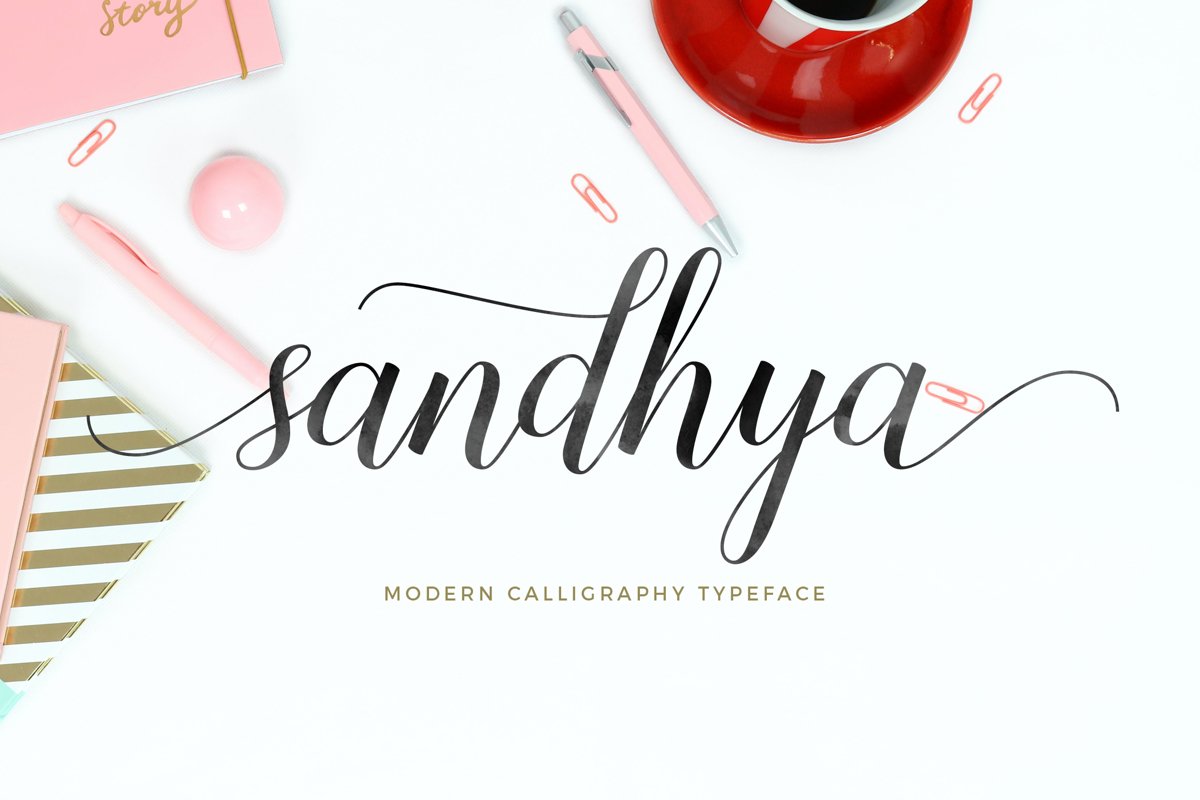
Sandhya Script 700815 Calligraphy Font Bundles Looking for sandhya font designed by unicode studio? click here to download the font or create a custom image with your own text online. This font is pua encoded which means you can access all of the glyphs and swashes with ease! it features a varying baseline, smooth lines, gorgeous glyphs and stunning alternates.
Sandhya Font By Unicode Studio Fontriver Sandhya script – a new fresh & modern script with a modern calligraphy style, decorative characters and a dancing baseline! so beautiful on invitation like greeting cards, branding materials, business cards, quotes, posters, and more! sandhya come with 400 glyphs. Release note this demo version font is only for personal use commercial licenses and complete set available at crmrkt 99ammd and if you need another product, please visit at: creativemarket unicode to donate click here unicodeid22@gmail i really appreciate your donations. mail support : unicodestudio@gmail thank you!. Download sandhya font for pc mac for free, take a test drive and see the entire character set. moreover, you can embed it to your website with @font face support. Download free sandhya font, view its character map and generate text based images or logos with sandhya font online. Welcome to exfont best free fonts. Sandhya is a free font for personal use created by unicode studio. sandhya is a script type font that can be used on any device such as pc, mac, linux, ios and android.